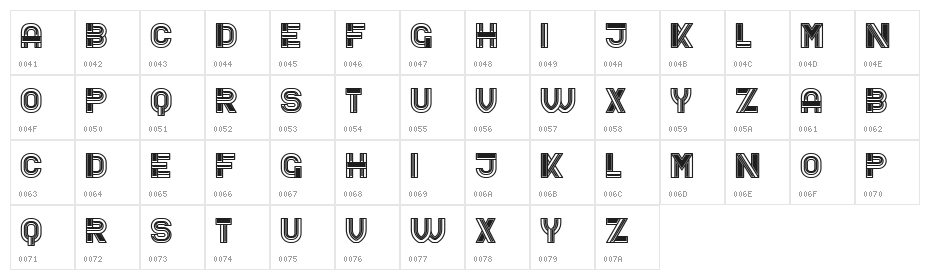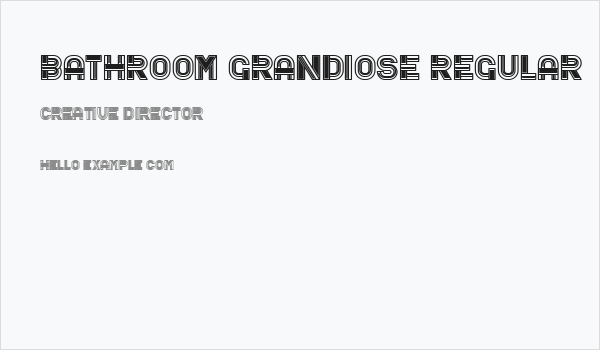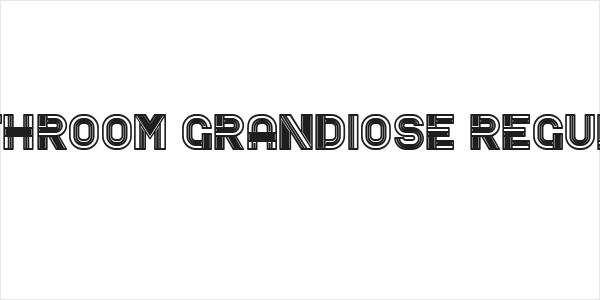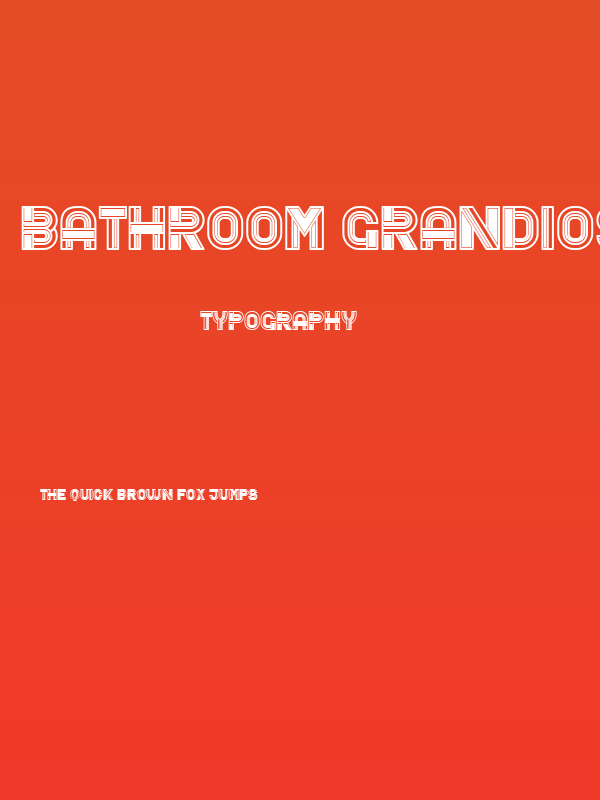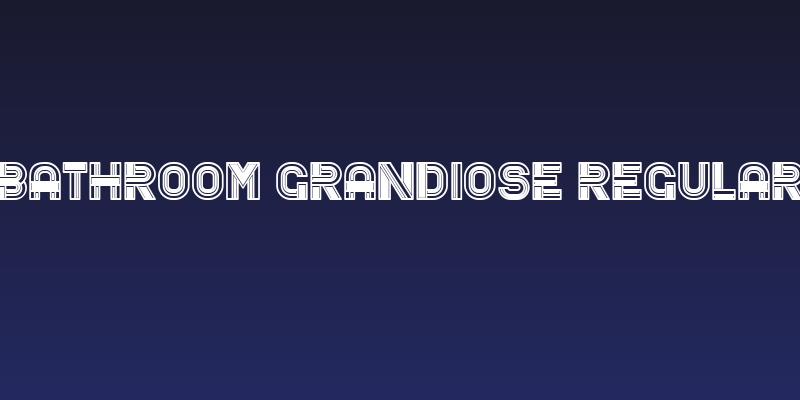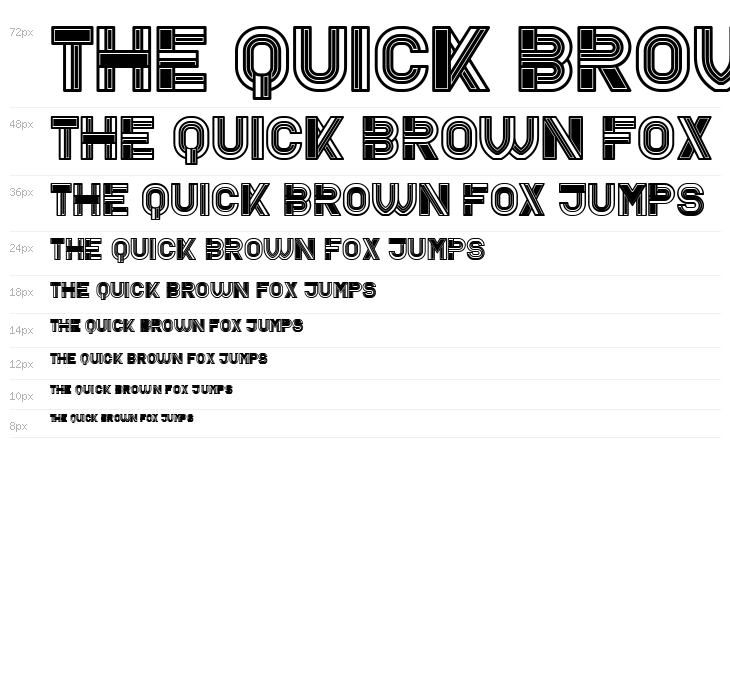
Bathroom Grandiose Regular Font
Bathroom Grandiose Regular Description
This font features a bold, geometric design with a distinct three-dimensional effect created by layered lines and shadows. Each character is constructed with precision, showcasing a modern and futuristic aesthetic. The uppercase letters are uniform in height, with a consistent width that emphasizes the structured, architectural feel of the typeface. The intricate detailing within each letterform adds depth and complexity, making it stand out in any design. The font's unique style is suitable for projects that require a strong visual impact, such as branding, posters, or headlines. Its decorative nature makes it less suitable for body text, but ideal for creative displays.
| Proposed Projects | Ideal for branding, posters, headlines, and any project needing a strong visual impact. |